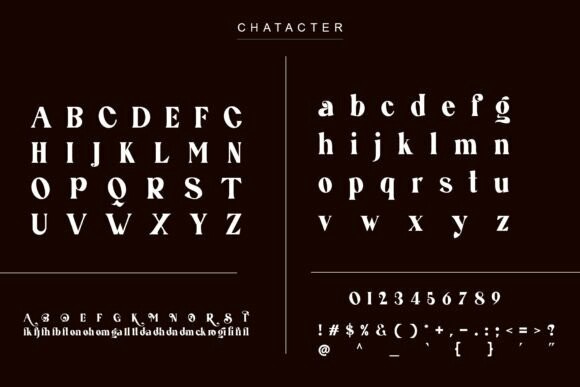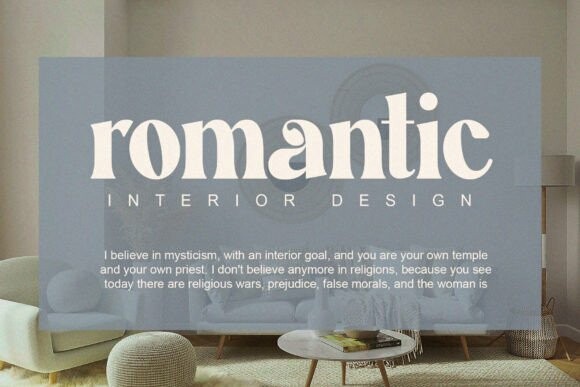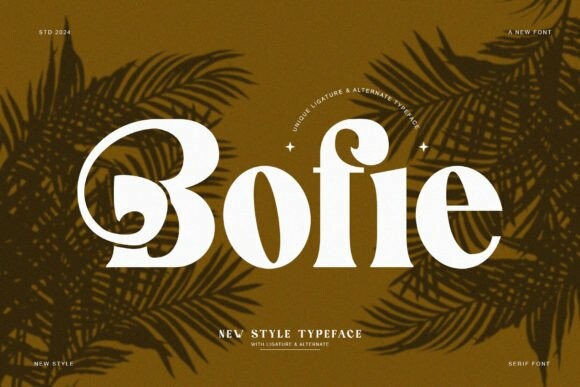
Bofie Font
Bofie Font is an elegant and classy serif typeface – This font is both modern and nostalgic and works great for logos, magazines, and social media. Already matched up and ready to be used together for your next design! For those of you who need a touch of elegance, stylish, classy, chic, and modernity for your designs, this font was created for you!
Bofie was built with OpenType features and includes ligatures, numbers, and punctuation, and it also supports other languages.